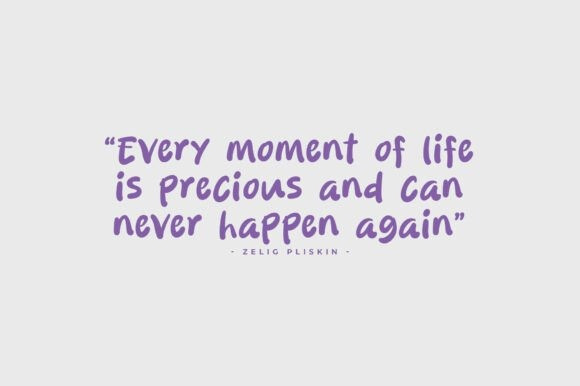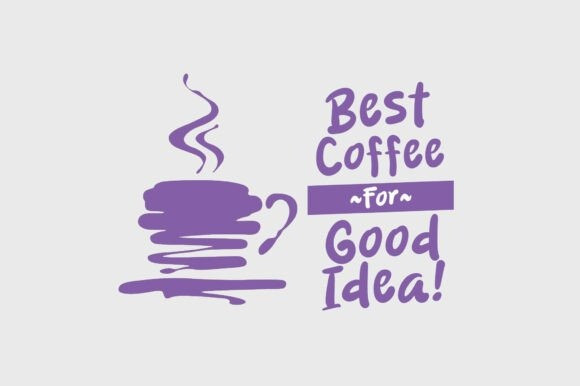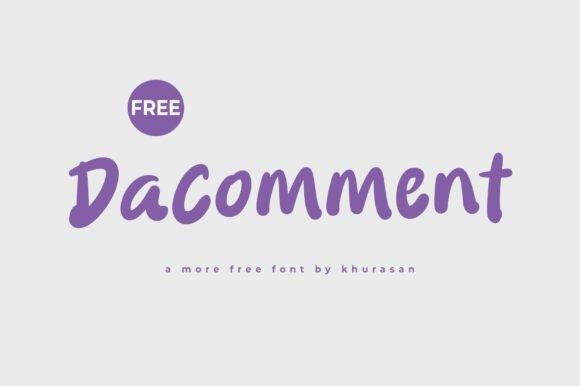
Dacomment Font
Dacomment Font a casual marker-style font that feels both friendly and authentic. This typeface features soft, rounded strokes and a subtle organic bounce, mimicking the natural flow of hand-drawn lettering. Its medium weight and clean terminals ensure excellent legibility while maintaining a relaxed, approachable vibe. Dacomment is an exceptional choice for quote graphics, children’s book titles, DIY-themed branding, lifestyle blog headers, and casual social media content.
Whether you are designing a playful logo or adding a personal touch to a greeting card, this font delivers a sense of handcrafted warmth and modern simplicity to every project.